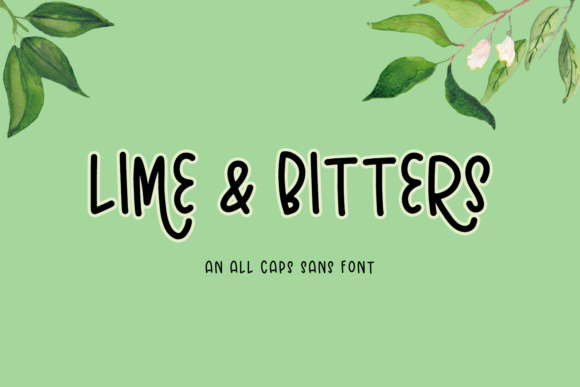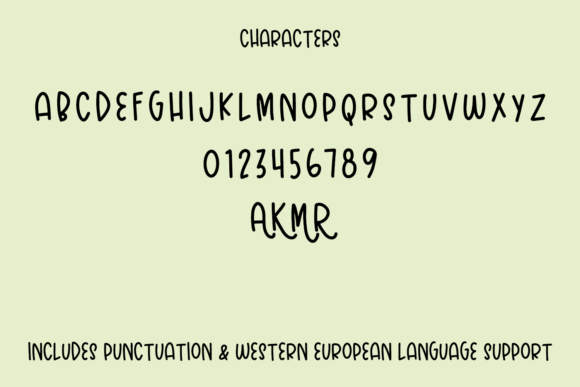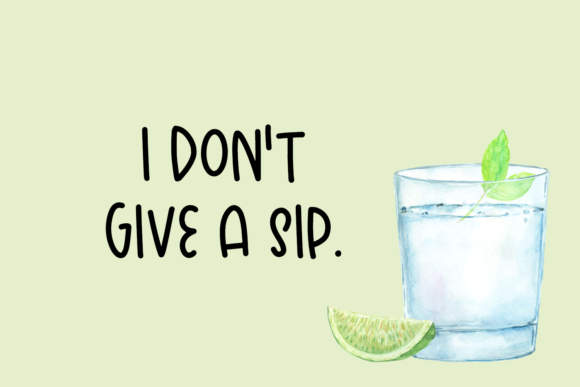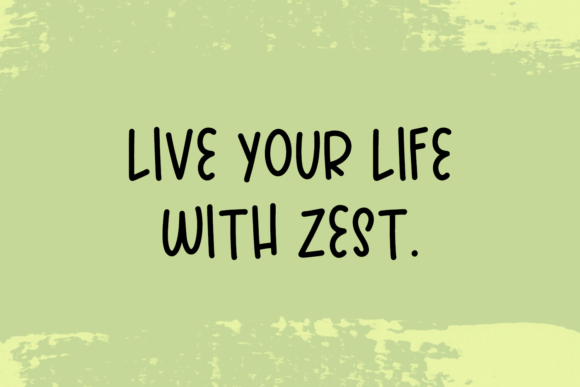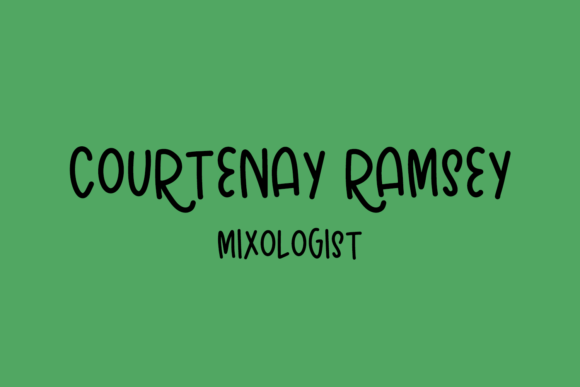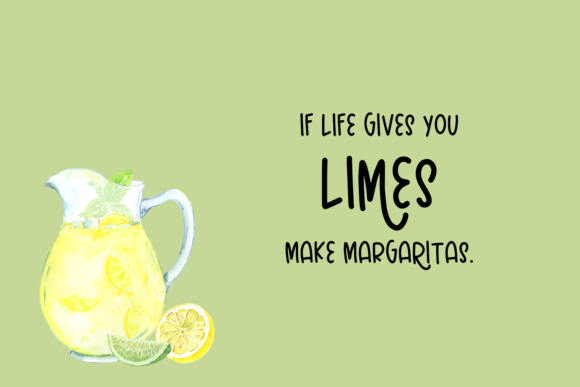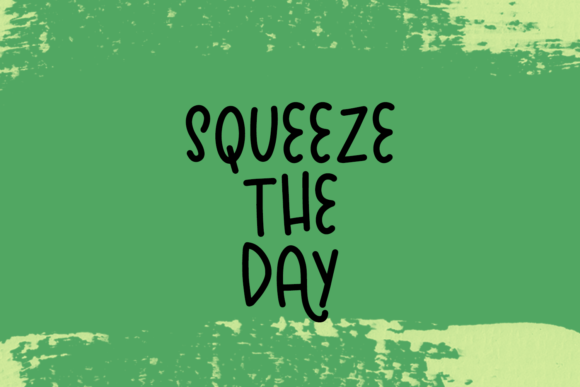
Lime and Bitters Font
About Lime and Bitters Font
Lime and Bitters is a cute, adaptable and friendly handwritten font. Its sweet and full of life style makes this font a wonderful choice for brightening up your designs.